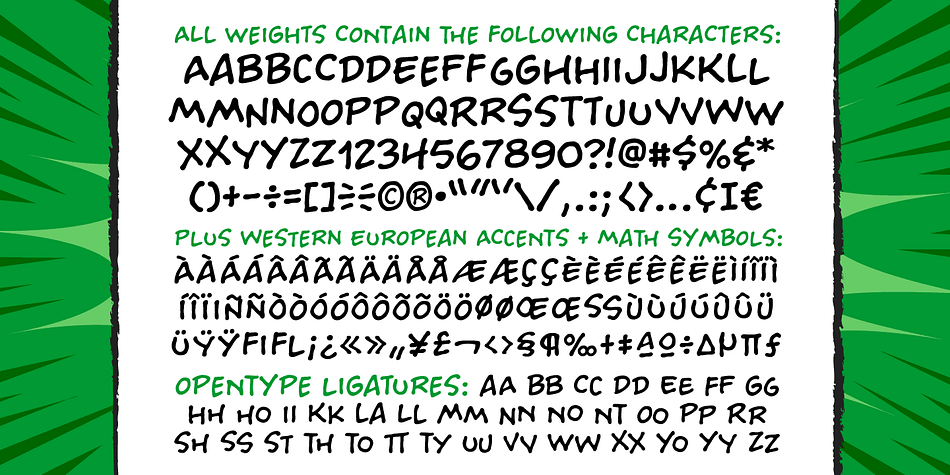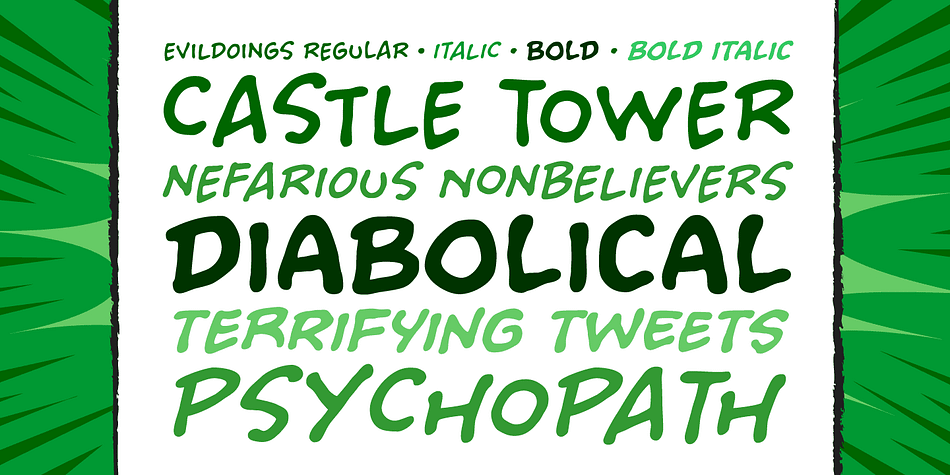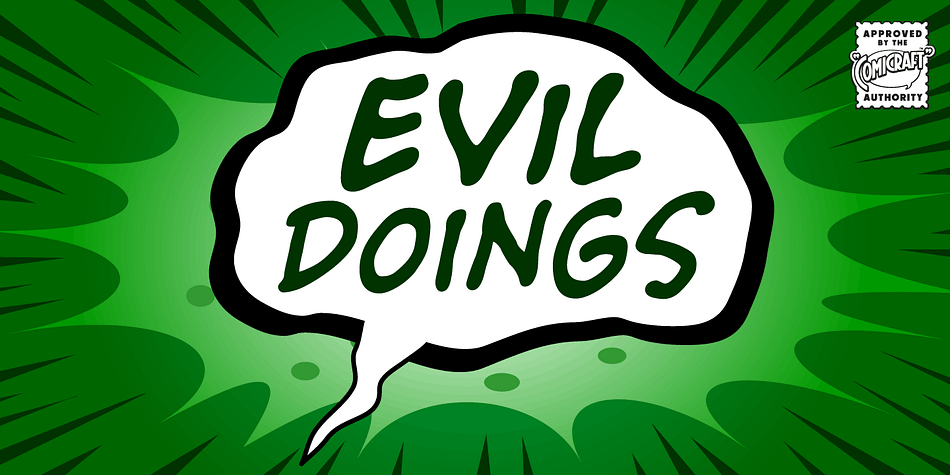
Designed by John Roshell, Evil Doings is a comic and hand drawn font family. This typeface has four styles and was published by Comicraft.
In isolated Eastern European states, atop cold castle towers, nefarious nonbelievers are discussing their diabolical devises with their minions, acolytes and sweet little Yorkshire terriers! Evildoings is a font that gives form to the softly spoken schemes and terrifying tweets of these psychopaths, sociopaths and just plain naughty boys and girls.
Will Good Triumph and Defeat the EvilDoings of EvilDoers?! Only if we listen to the cries of the oppressed proletariat and quash the devilish dreams and evil schemes of Fascist Dictators EVERYWHERE!
Four fonts (Regular, Italic, Bold & Bold Italic) with upper and lowercase characters. Includes Western European international characters.